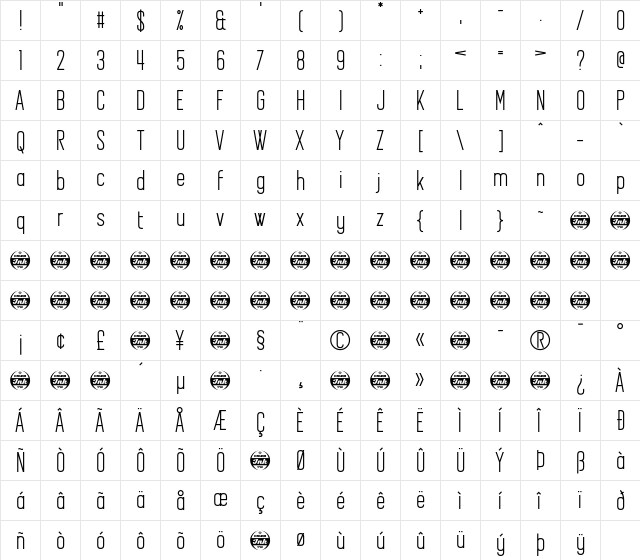
Another Flight Regular Font Preview
Another Flight Regular
Another Flight Regular Font Details
| Designer | Allison JJ |
Design Context for Another Flight Typeface
Another Flight offers clean, dependable letterforms without strong stylistic allegiance, making it a practical choice for designers who need flexibility. Its slender proportions lend an understated elegance to any composition.